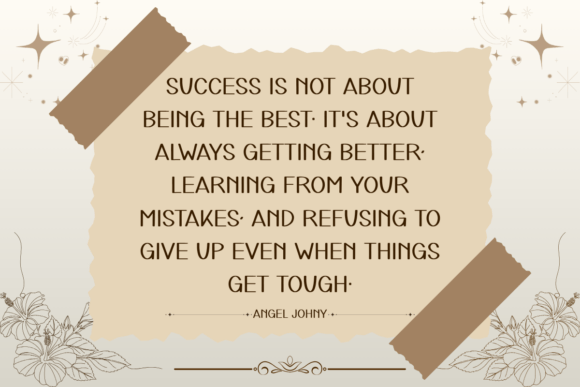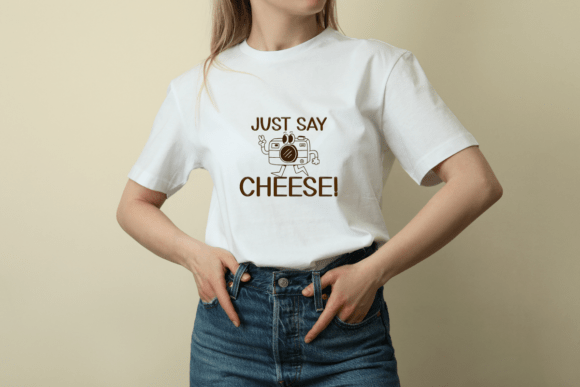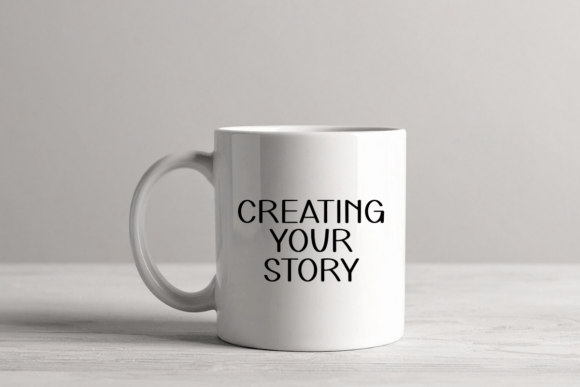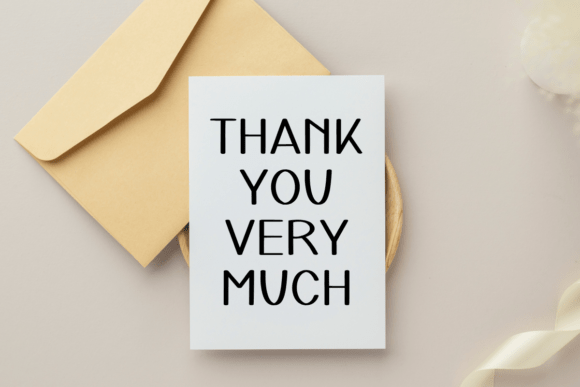
When Words Become a Warm Hug
Remember the moment when you first saw a font that just made you smile? For designers, those moments are priceless. Perhaps it was the perfect combination of curves and lines, or the way the letters seemed to dance together. Whatever it was, it sparked an idea, and that’s exactly what happened when Angel Johny Font came onto the scene.
Angel Johny Font is a delightful sans-serif typeface that effortlessly blends modern simplicity with a heartwarming touch. Its friendly and approachable nature makes it perfect for designs that aim to inspire joy and positivity. Whether you’re working on a children’s project, branding, or packaging, this font adds warmth and clarity to your creative work.
- Unique Characteristics: Angel Johny Font is a unique, hand-drawn font with a distinctive aesthetic that combines elegance and playfulness.
- Font Style: The font is available in both regular and bold styles, allowing users to choose the perfect weight for their design needs.
Review: Angel Johny Font
Overall, I was quite impressed with the Angel Johny Font. The font’s unique and quirky design makes it a great fit for creative projects, such as posters, flyers, and advertisements. ✨
- The font’s bold and playful personality really shines through, making it perfect for grabbing attention.
- The font’s versatility allows it to be used in a variety of settings, from modern to vintage-inspired designs.
- The font’s character set is quite extensive, making it suitable for a wide range of languages.
However, there are a few limitations to consider. ⚠️
- The font may not be the best choice for body text, as it can be a bit too ornate and distracting.
- The font may not render well in smaller sizes, potentially leading to readability issues.
- The font’s bold weight may not be as evenly balanced as some other fonts, which can affect its overall appearance.
Despite these limitations, I think the Angel Johny Font is a great addition to any designer’s toolkit. Its unique personality and versatility make it a great choice for a wide range of projects. With a bit of caution and careful consideration, this font can add a touch of whimsy and creativity to any design.
Tips: Use Angel Johny Font for creative and artistic projects, such as social media graphics, flyers, and posters.
Tips: Use Angel Johny Font for high-end design projects, such as business cards, brochures, and presentations.
Tips: Use Angel Johny Font for presentations, reports, and documents that require a touch of elegance and sophistication.
Angel Johny Font is ideal for:
- Creative and artistic projects
- High